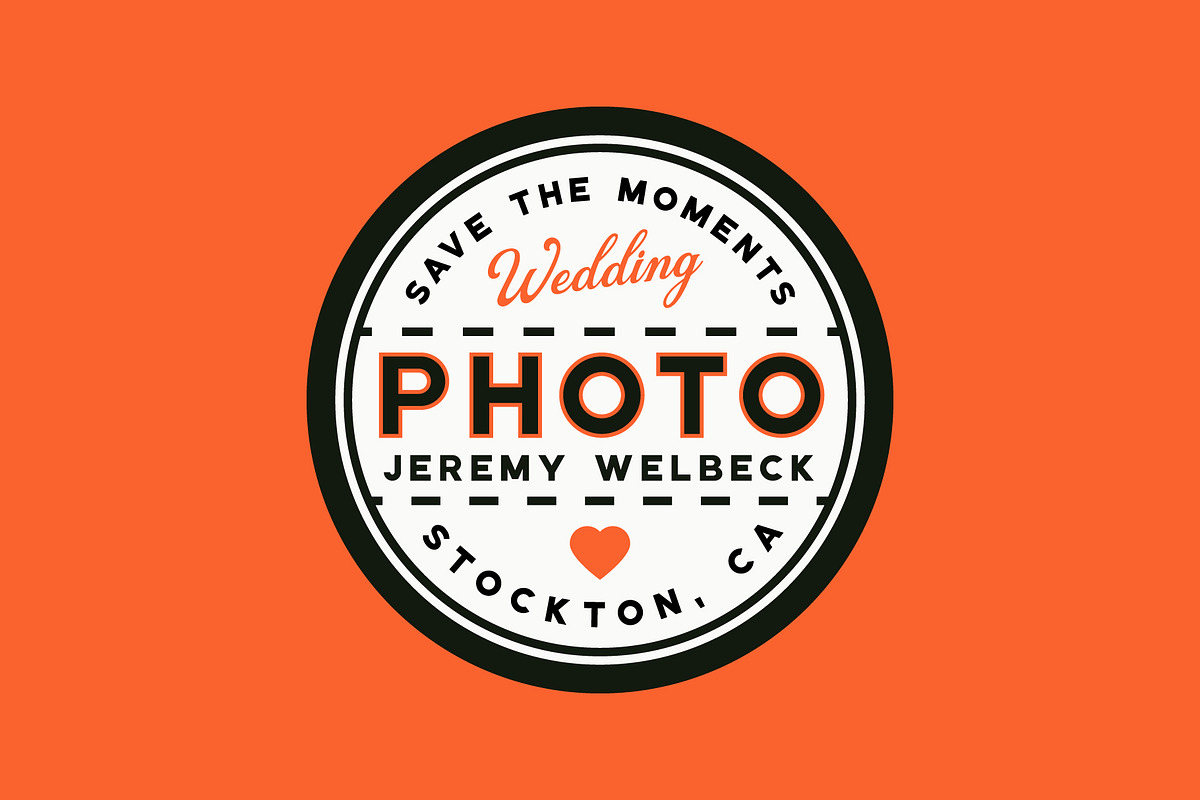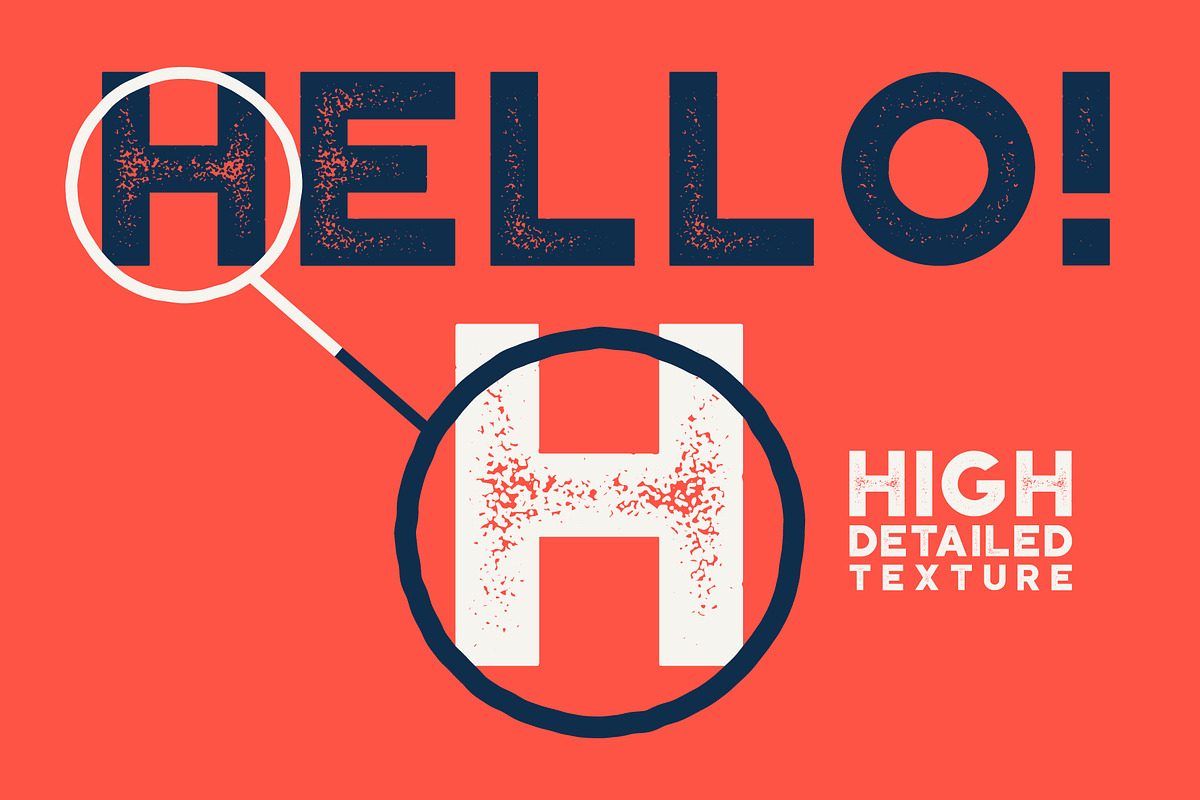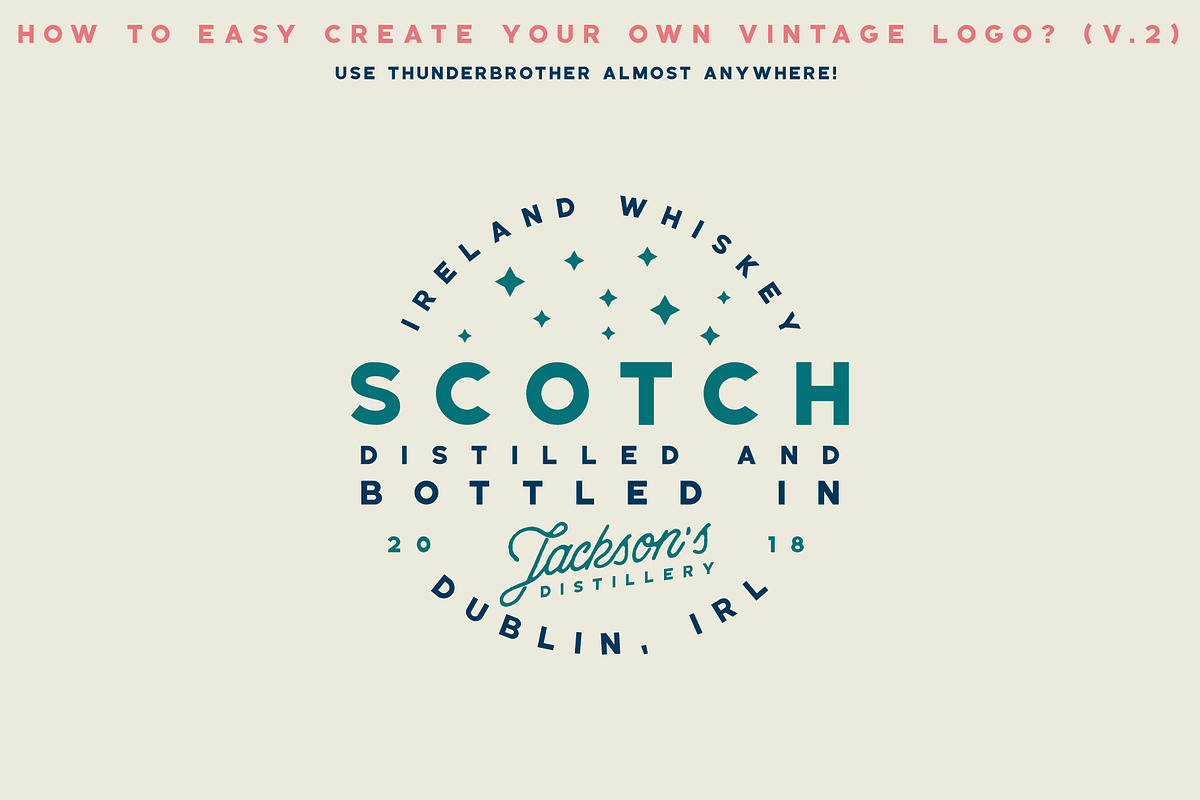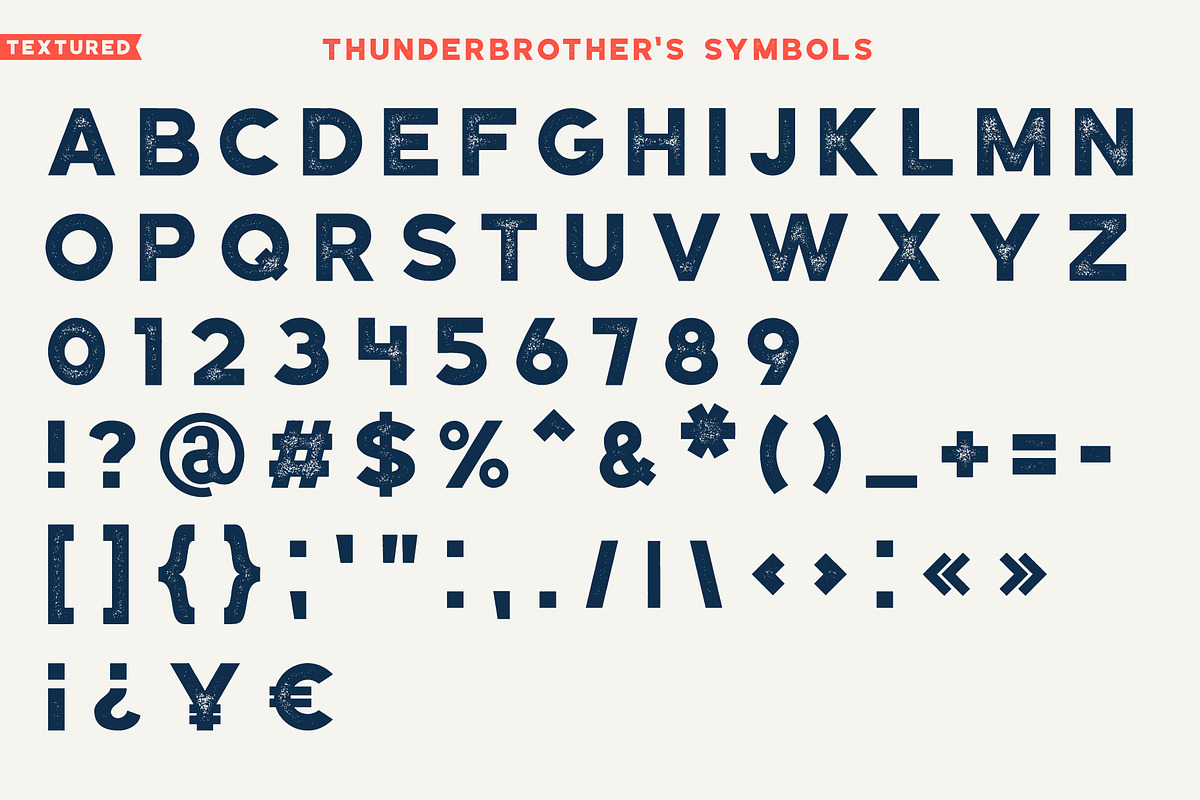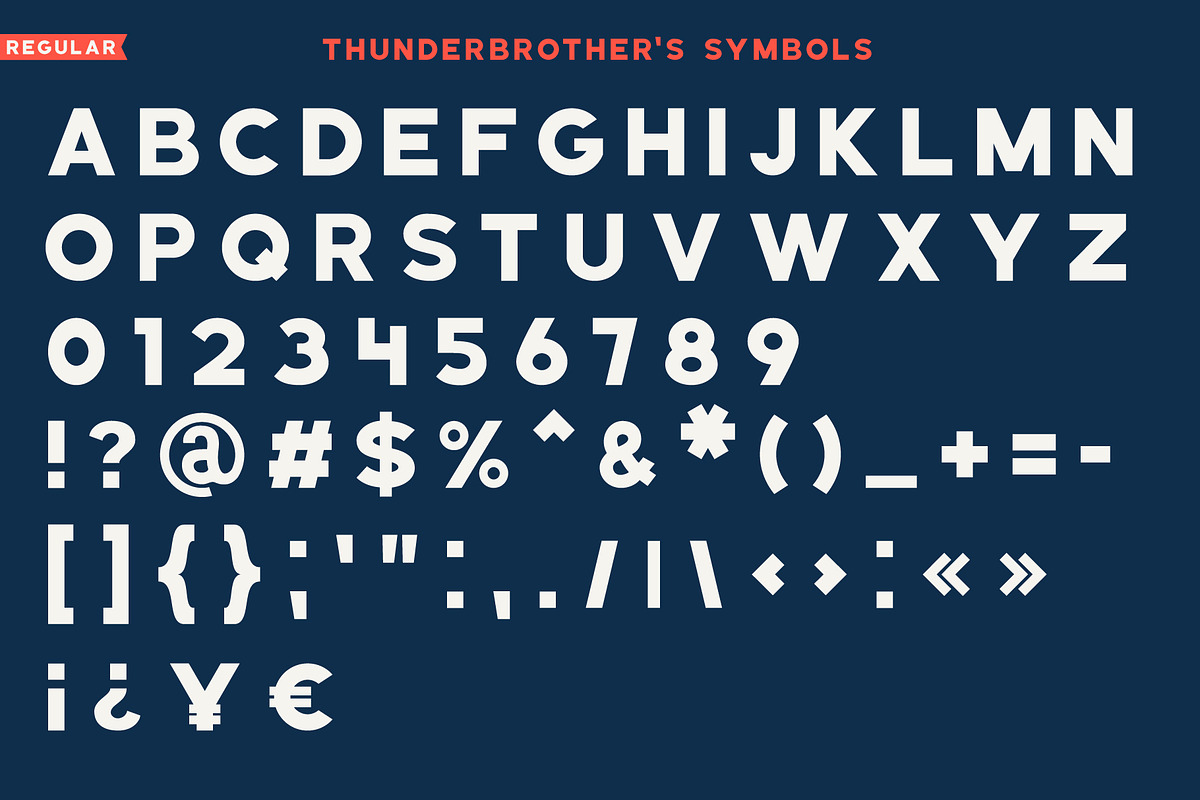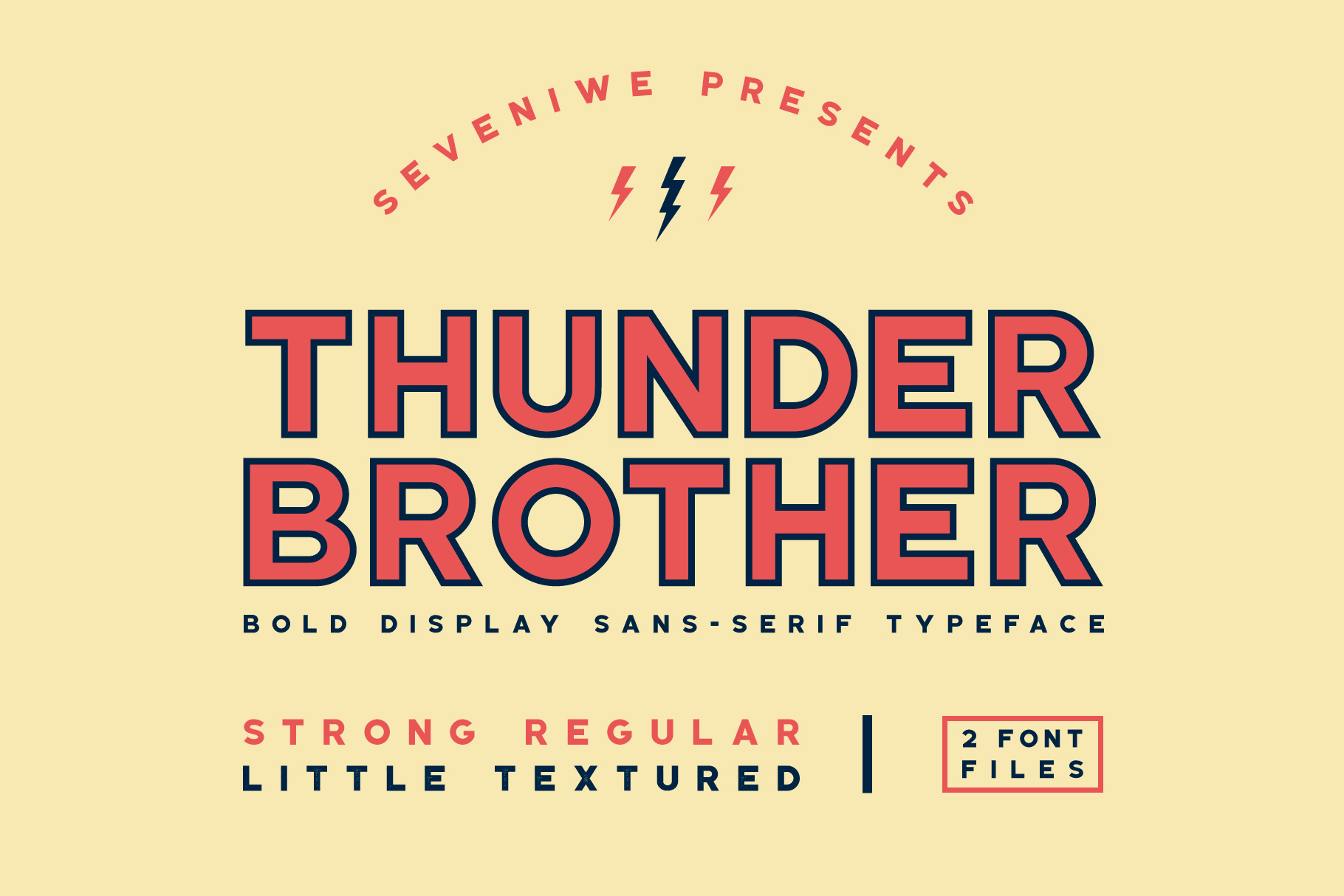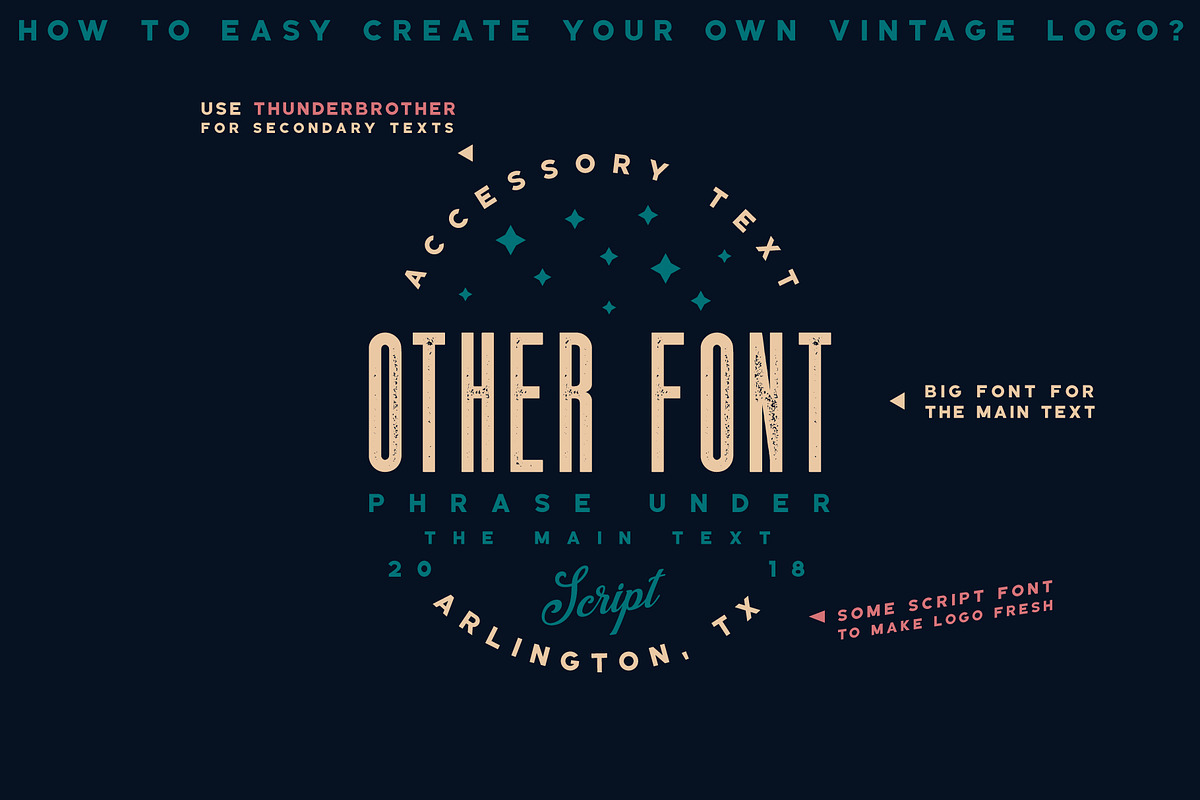
Thunderbrother - Sans-Serif Typeface
Introducing Thunderbrother - all caps bold sans-serif typeface family which includes regular & grunge textured versions. Fonts inspired by old vintage logotypes and made primarily for secondary texts in logos.
How, in my opinion, to optimally use this font:
- Small tutorial how easy it is to create a vintage logo you can see in the second and third previews. In the writing of the secondary text via these fonts, I believe it is better to set the letter spacing more. Then the text looks beautiful and organic.
- However, Thunderbother is great for massive headings. Here the letter spacing is not significant. You can make it bigger, as in the third preview in the "Scotch" word, but tightly-located letters also look organically and adequately.
- Thunderbrother Textured will look best on a large scale. Light grunge texture is not particularly noticeable in small sizes. Vintage typography design eager to try out the grunge version of this font. ;)
- Some stroke to clean version of Thunderbrother (like on main preview) can add a touch of freshness to your design.